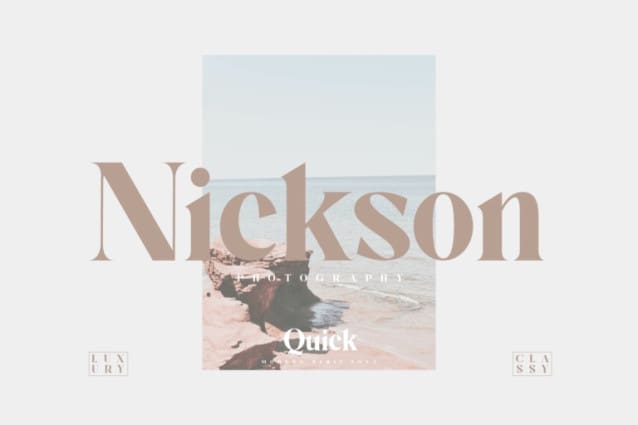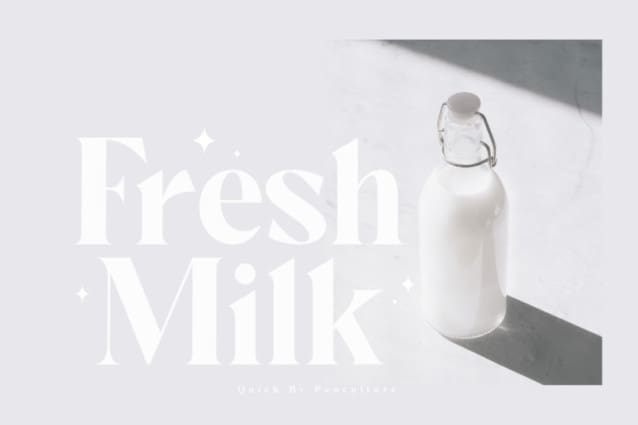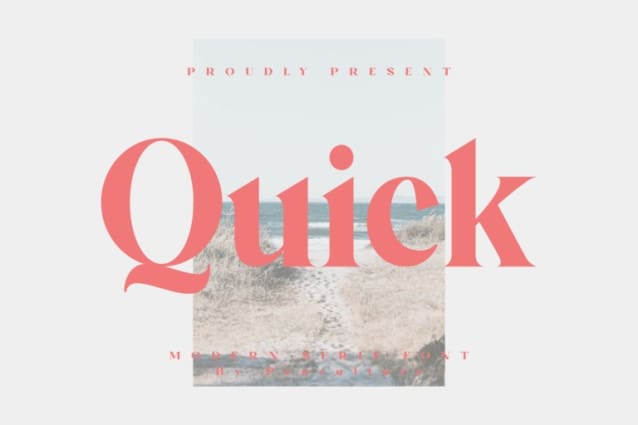
Quick Typeface
Quick Typeface is modern elegant serif typeface. this font perfect for branding, logo design, product packaging, magazine headers, and so much more.